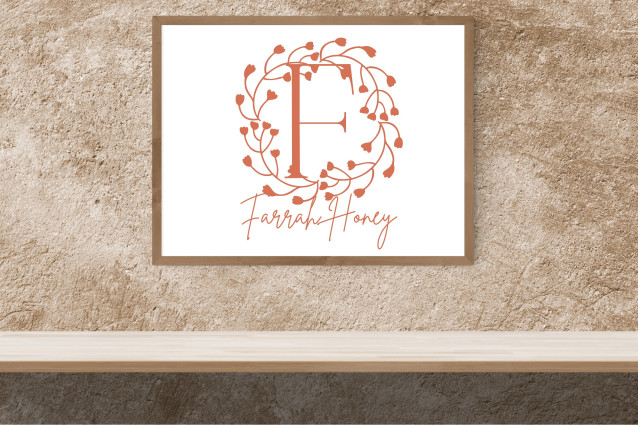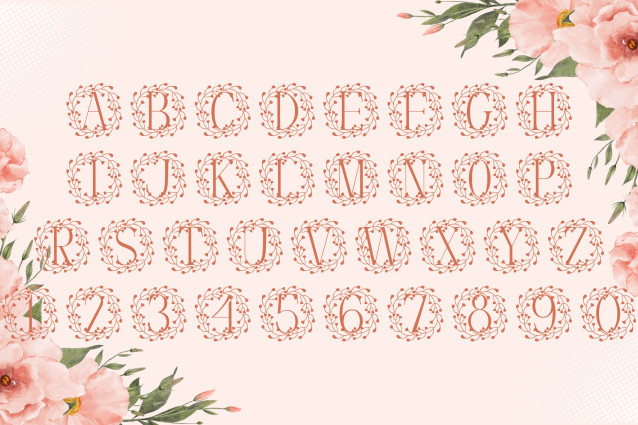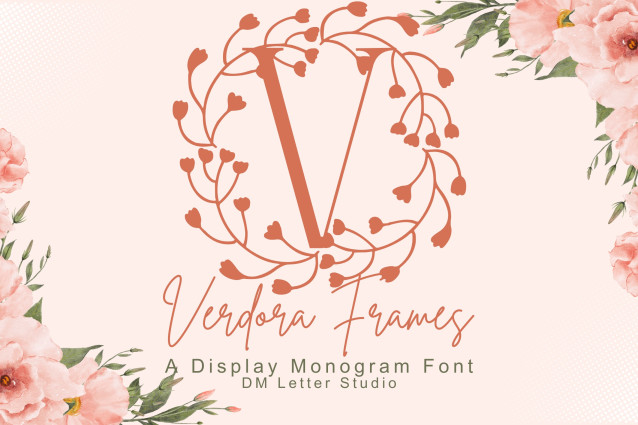
Verdora Frames Monogram Font
Verdora Frames Monogram Font is a nature-inspired monogram font featuring uppercase letters framed in lush, leafy outlines. Each character is delicately designed with botanical borders, giving it an elegant and organic look. Perfect for branding, packaging, wedding materials, and seasonal crafts, this font brings a sense of earthy sophistication to your monogram designs.